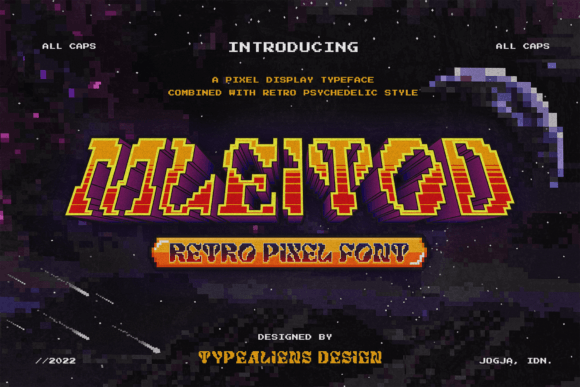
Feel the thrill of creating captivating academic posters that pop with personality! Meet Mleitod Font, the ultimate font companion for your scholarly endeavors. This dynamic display font will take your posters to new heights, making them stand out from the ordinary and leaving a lasting impression on your audience.
Mleitod's retro-pixel design is a delightful blend of nostalgia and modernity. Its unique style adds a touch of quirkiness and playfulness to your posters, capturing the attention of viewers and sending a clear message: your research is anything but boring!
With Mleitod, you'll have the freedom to express your ideas with flair. Whether it's a scientific breakthrough, a historical analysis, or a groundbreaking thesis, Mleitod will amplify your message, making it resonate with your audience. Its versatility allows you to create posters that are both informative and visually stunning, leaving an unforgettable mark on everyone who sees them.
Crafting an academic poster should be an enjoyable and creative process, not a chore. Mleitod takes away the stress and brings in the fun, making poster-making a delightful experience. Its user-friendly design ensures that even those with limited design skills can create visually compelling posters that communicate their ideas effectively.
So, embrace the power of Mleitod and unleash your academic creativity. Craft posters that are as engaging as they are informative, and watch your research shine like never before. Let Mleitod be your font of choice, and let your academic brilliance shine through!